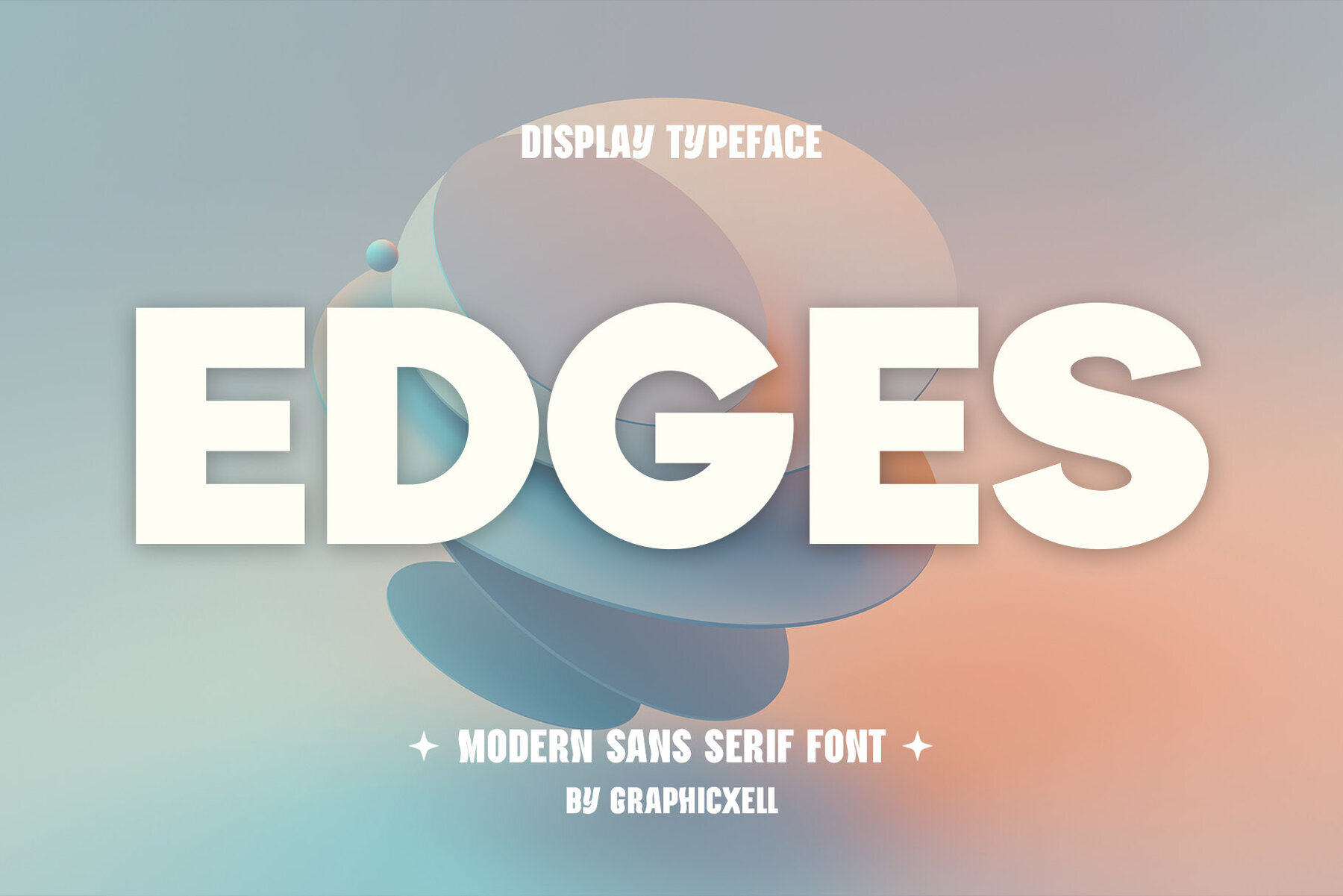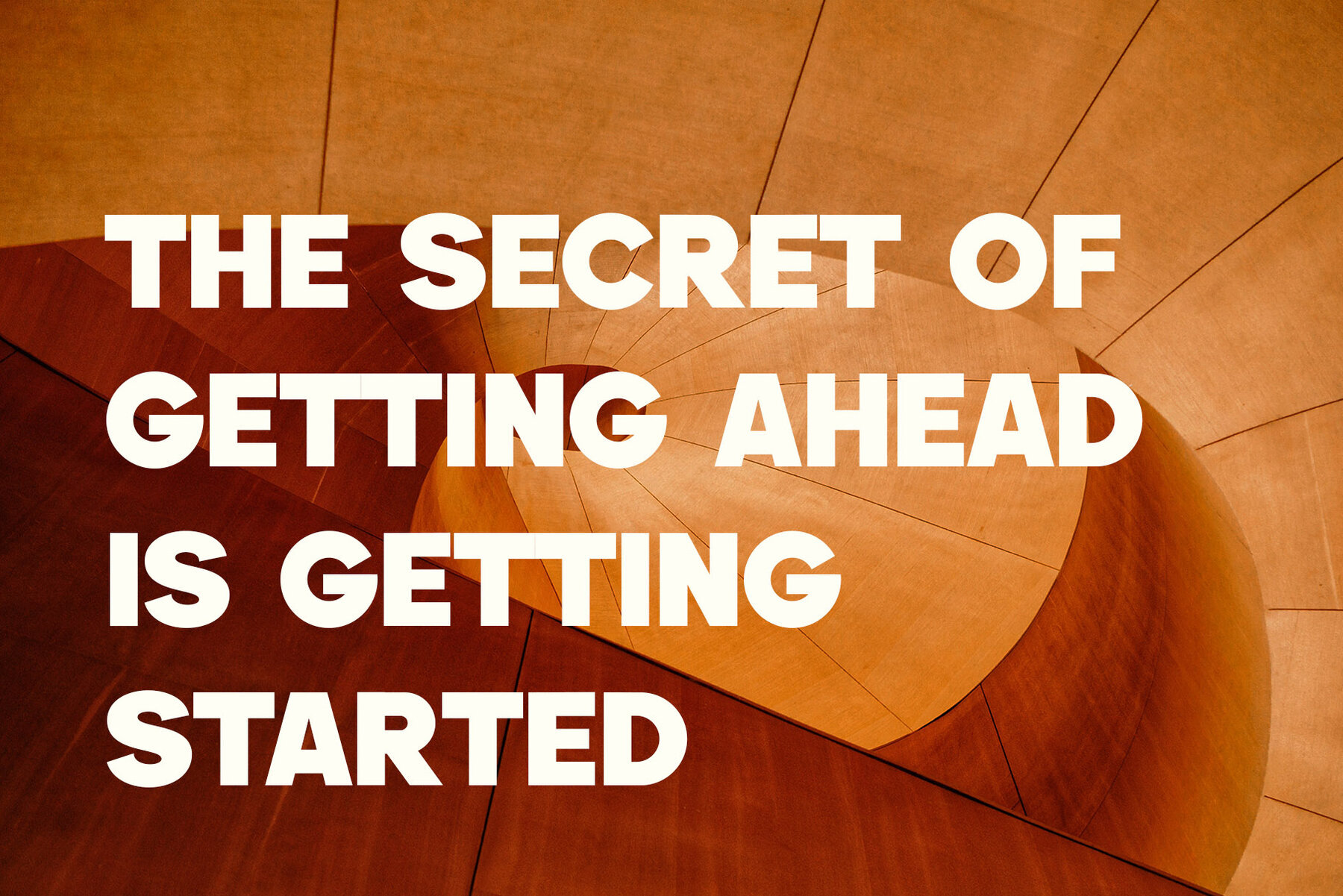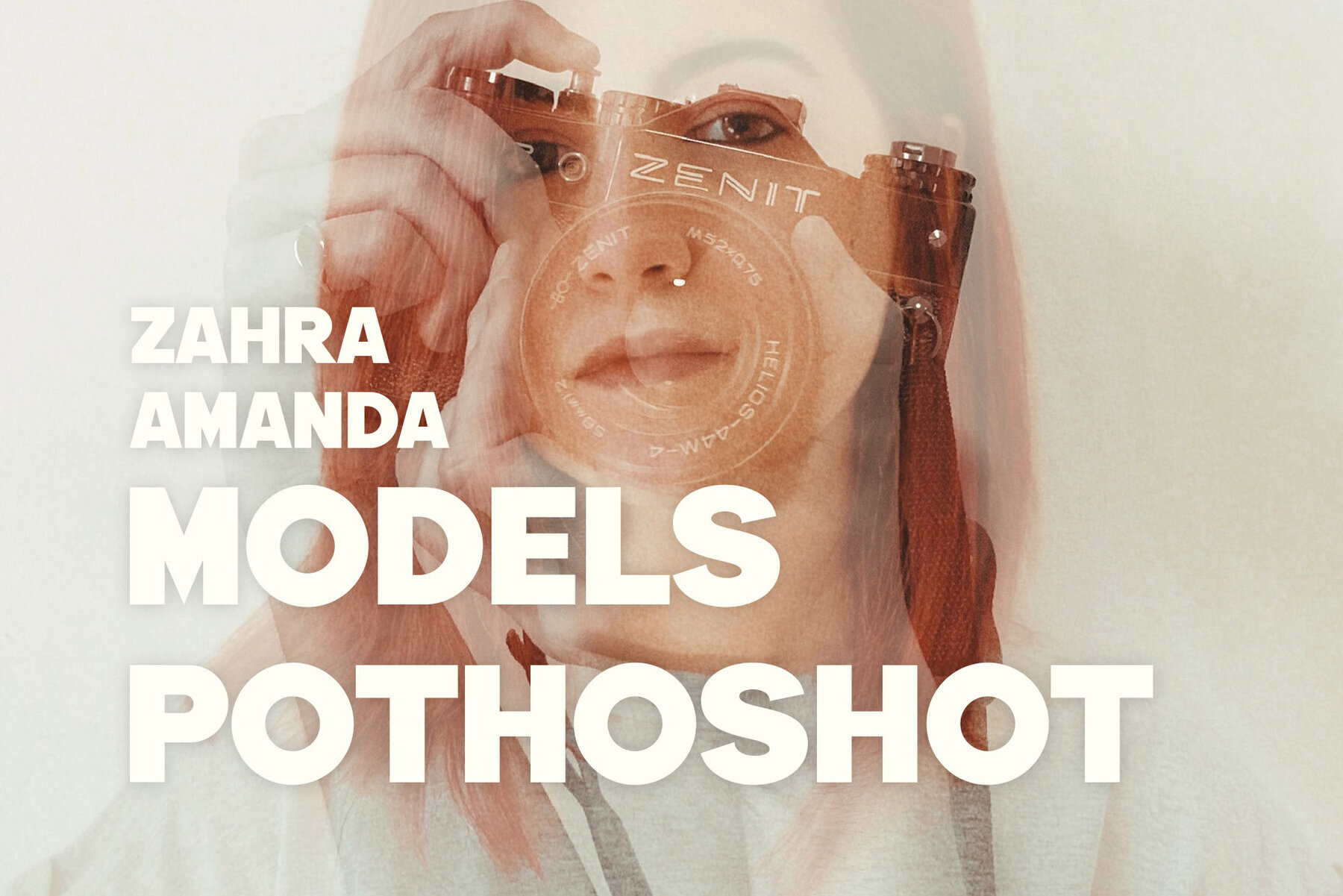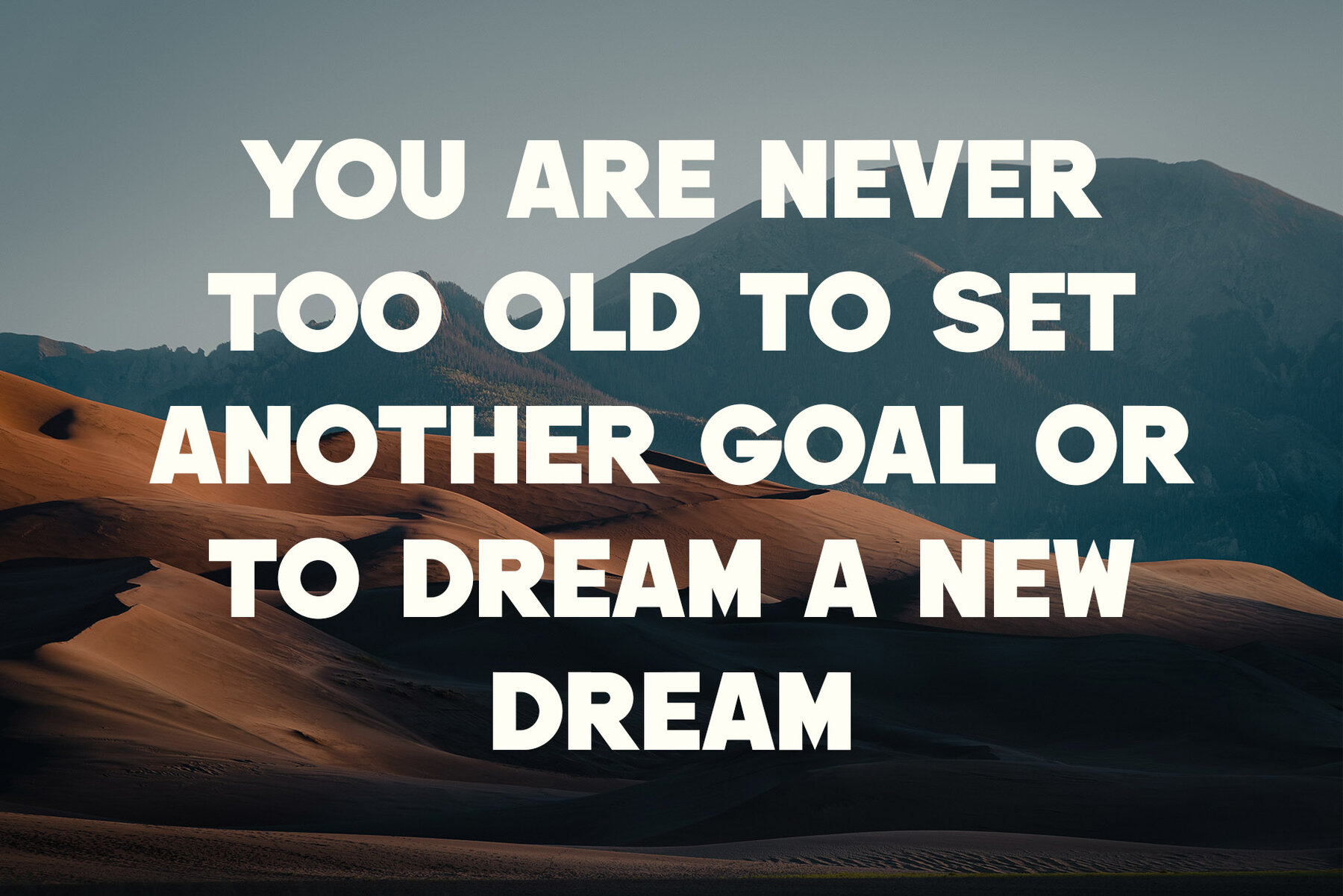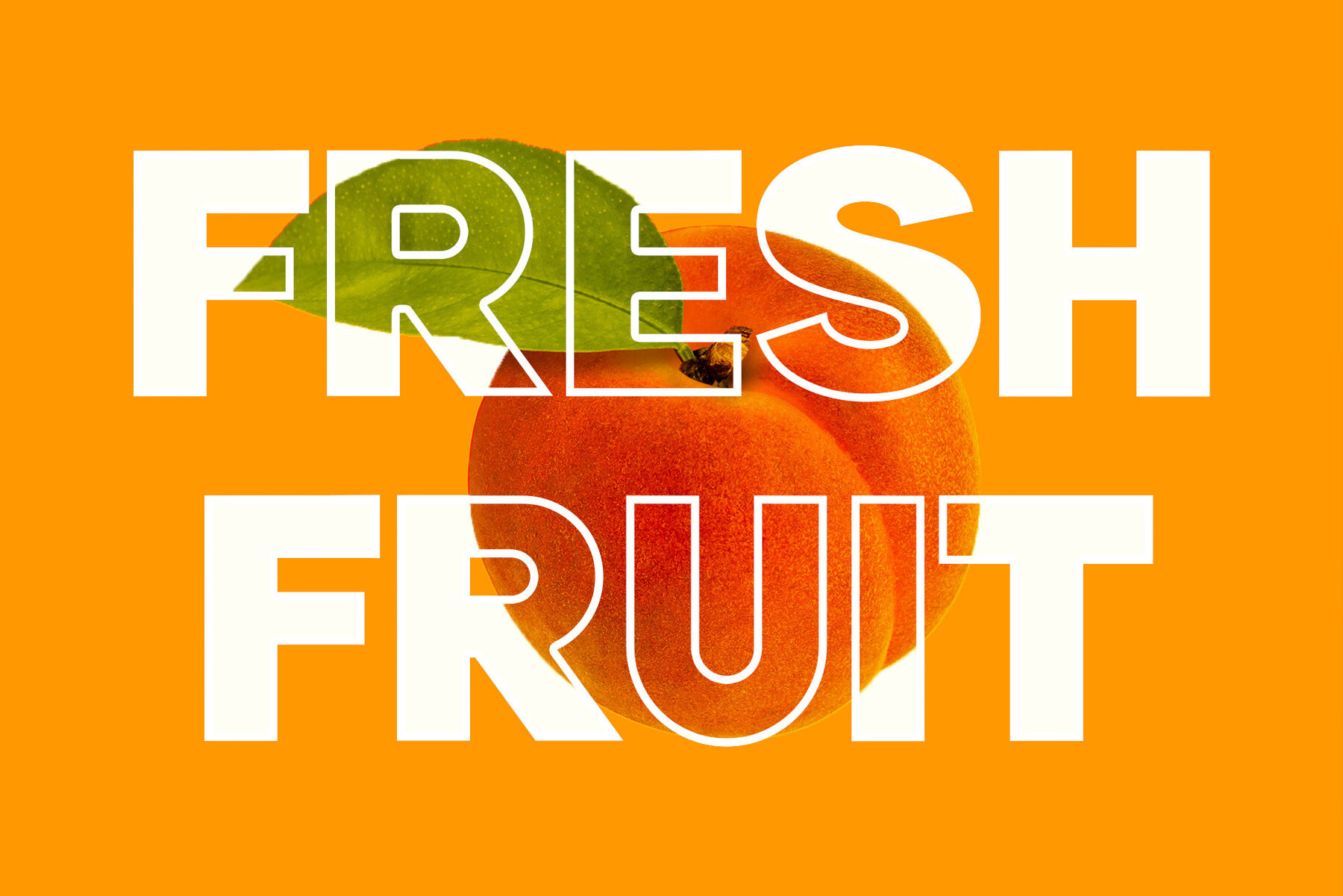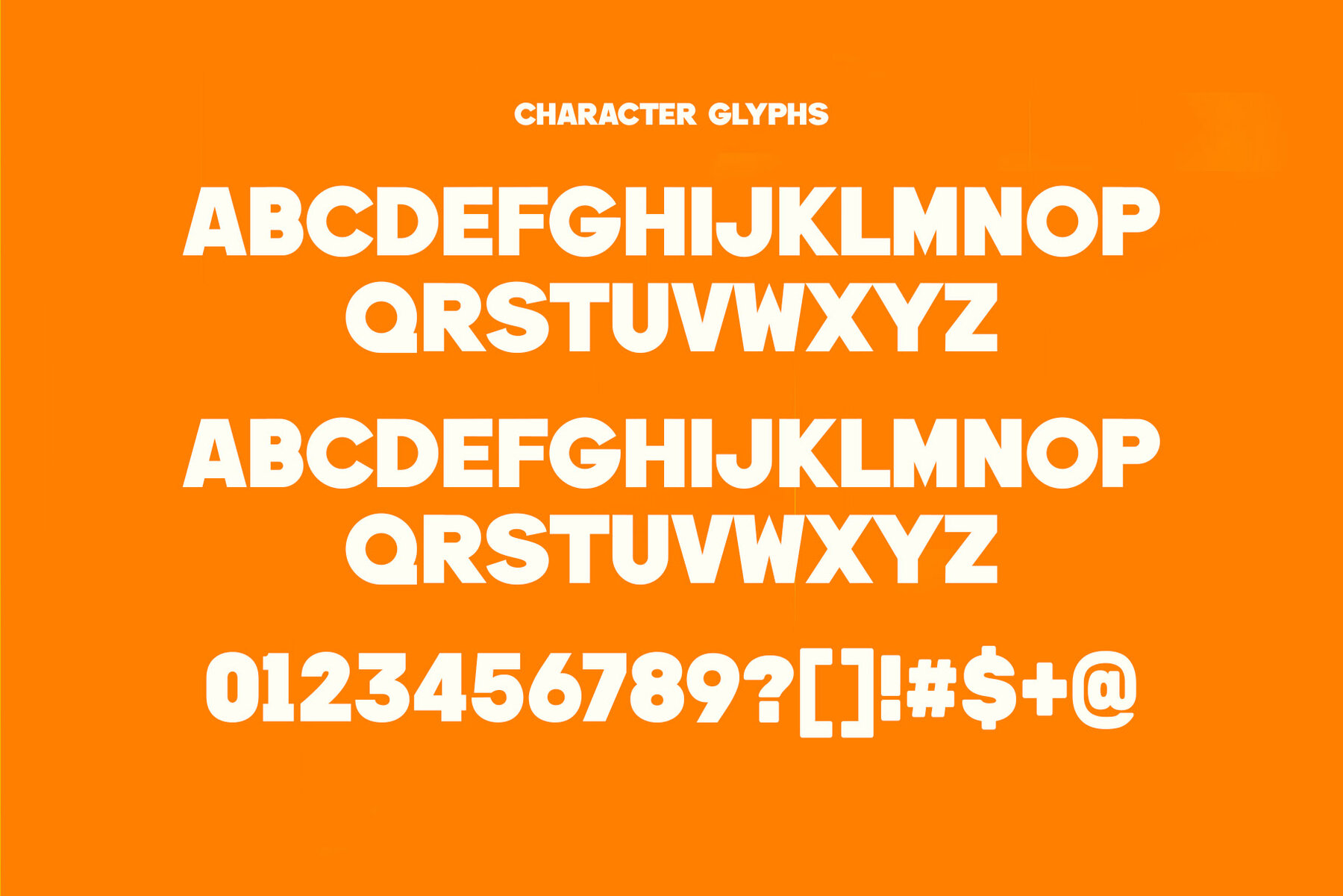
Edges Font
Edges Regular
Edges: Minimalist Typeface for Versatile Design
Edges by Graphicxell is inspired by famous minimalist logos, making it an ideal choice for a wide range of design projects. Whether you are creating templates, brochures, videos, or engaging in advertising branding, Edges offers a touch of elegance.
Applications
- Logo Design – Perfect for crafting sleek, modern logos.
- Templates and Brochures – Enhances layout design with minimalistic appeal.
- Advertising and Branding – Suits a variety of branding needs with elegance.
- Elegant Crafting – Adds sophistication to beauty and design projects.